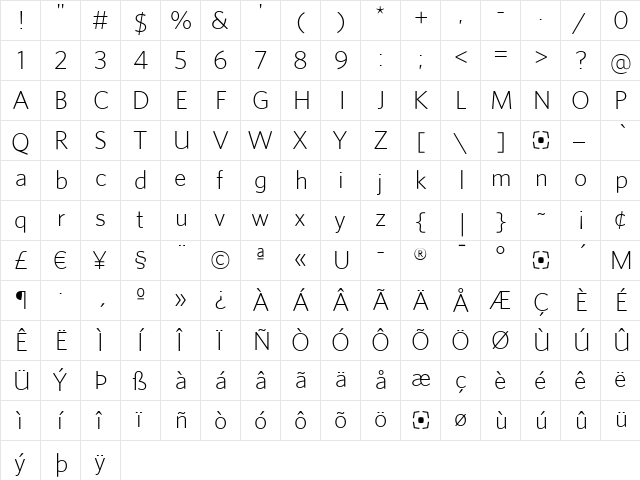
WhitneySans Regular
Design Context for WhitneySans Typeface
WhitneySans takes a measured approach to typography — its balanced proportions and neutral character make it a reliable workhorse for both digital and print work.